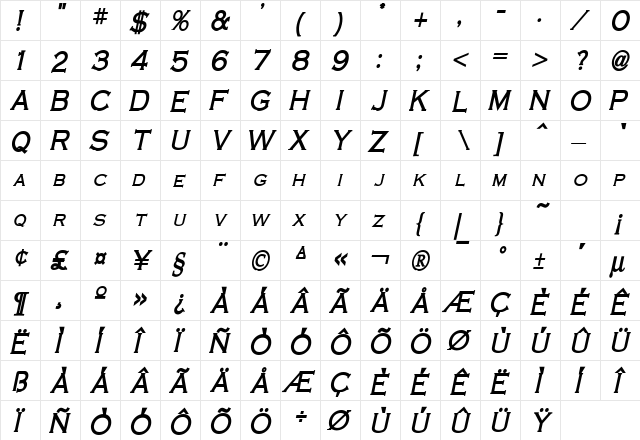
Cobalt Condensed Bold Italic Font Preview
Design Context for Cobalt Condensed Typeface
Cobalt Condensed takes a measured approach to typography — its balanced proportions and neutral character make it a reliable workhorse for both digital and print work. The dynamic lean of this cut emphasises speed and emphasis in any layout. The heavy weight commands attention and anchors typographic hierarchies. The condensed width makes it efficient for tight spaces without sacrificing legibility.
Pro Tip: Use Cobalt Condensed for emphasis, pull quotes, and subheadings where its slanted energy can add rhythm to the layout.